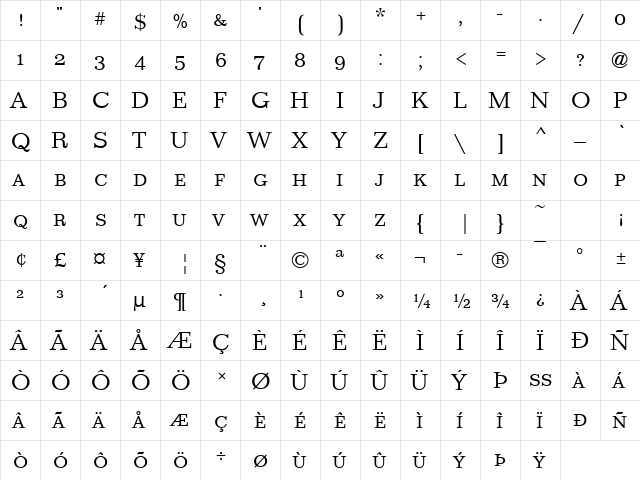
Mariam Becker Caps Light Regular
Design Context for Mariam Becker Caps Light Typeface
Mariam Becker Caps Light offers clean, dependable letterforms without strong stylistic allegiance, making it a practical choice for designers who need flexibility. Its slender proportions lend an understated elegance to any composition.
Pro Tip: Use Mariam Becker Caps Light in both headline and body roles to test its range before committing to a single application.